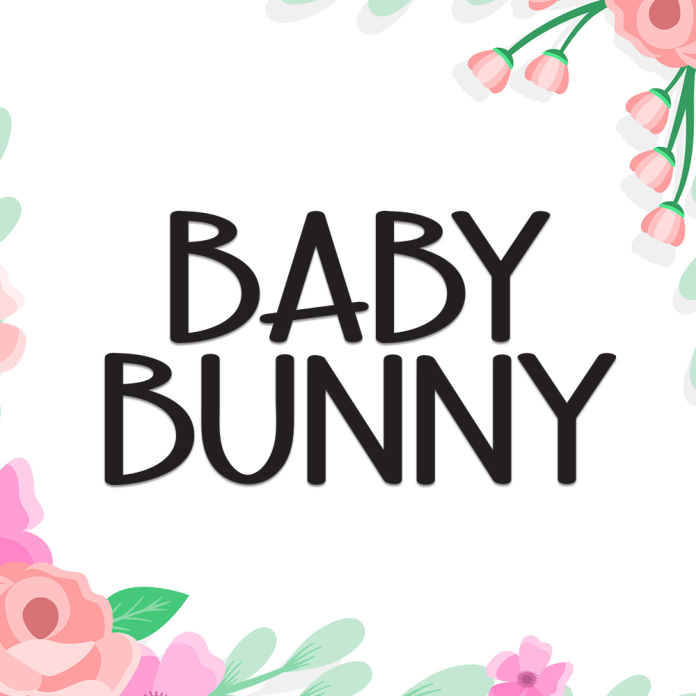
Baby Bunny is an irresistibly adorable display font full of charm and sweetness. Its rounded, bubbly letters bring a sense of joy and innocence, perfect for designs aimed at children or anything that needs a cute, happy vibe.
Display font with a soft, cartoon-like style
Great for baby products, kids’ books, birthday cards, and toy packaging
Rounded characters with a cheerful appearance
Let your designs bounce with joy using the playful and heartwarming style of Baby Bunny.